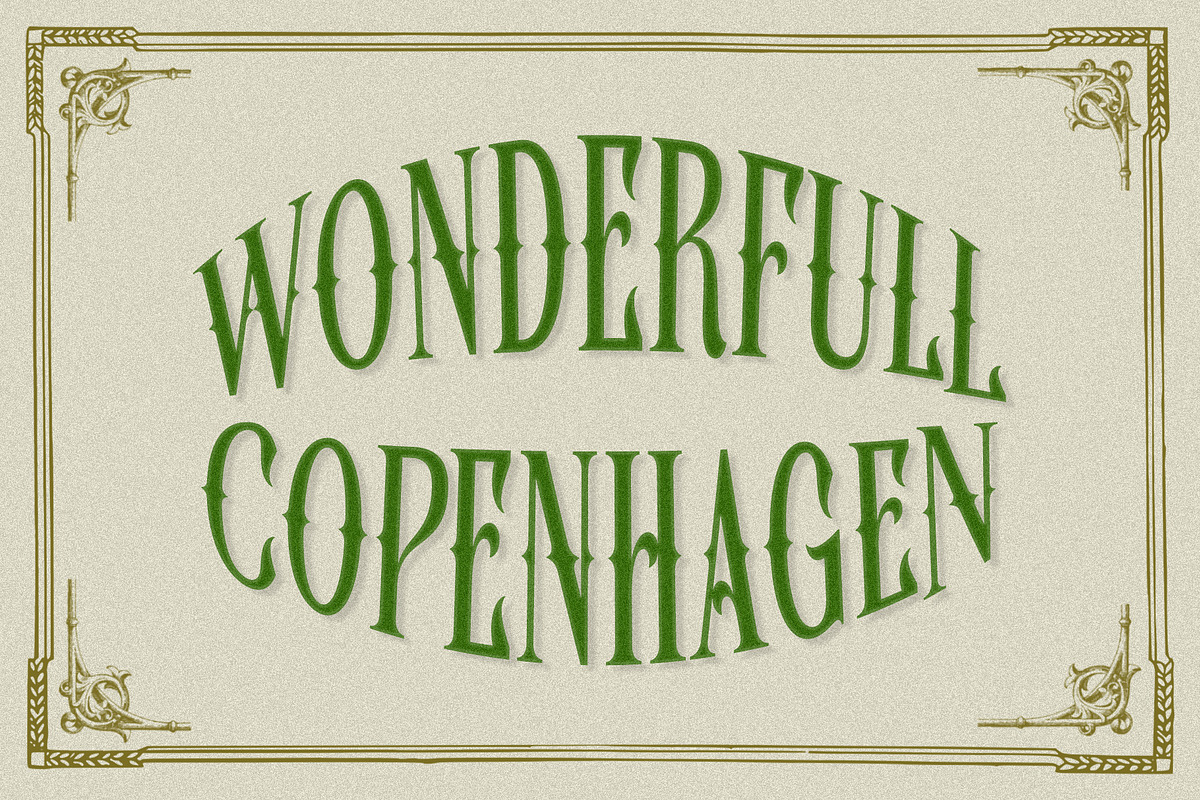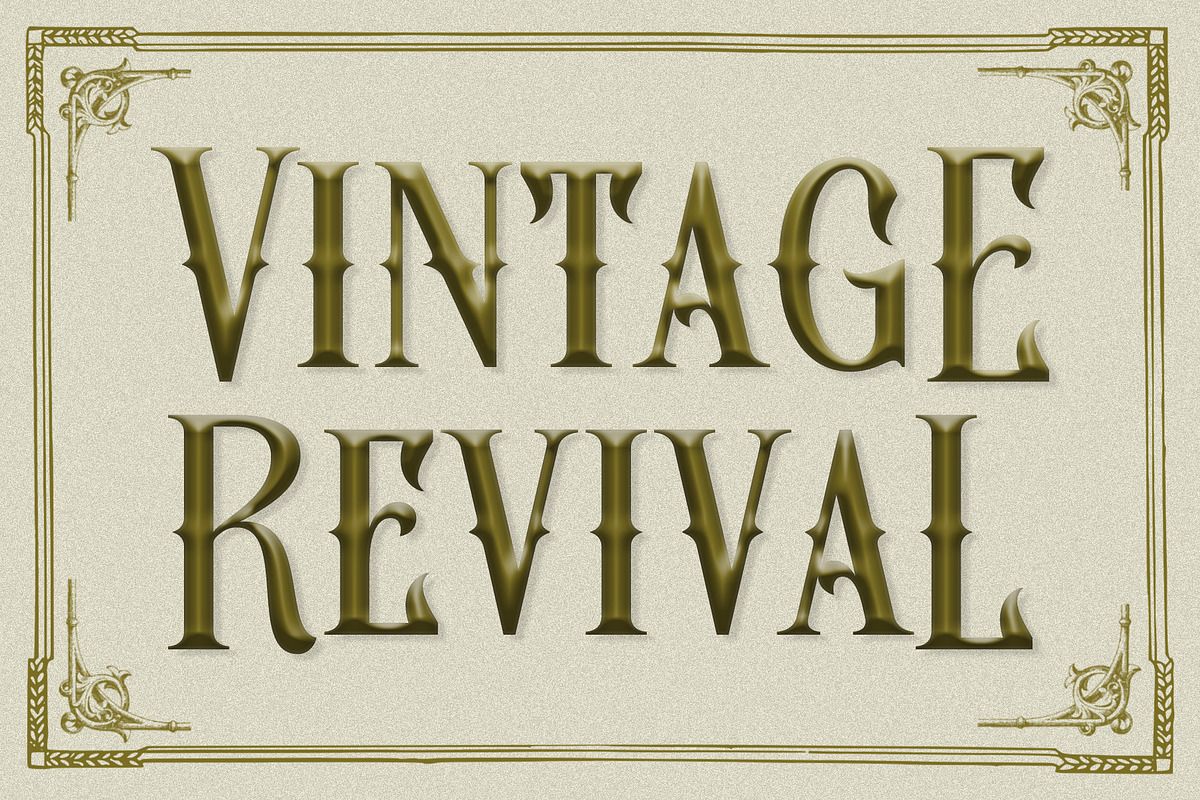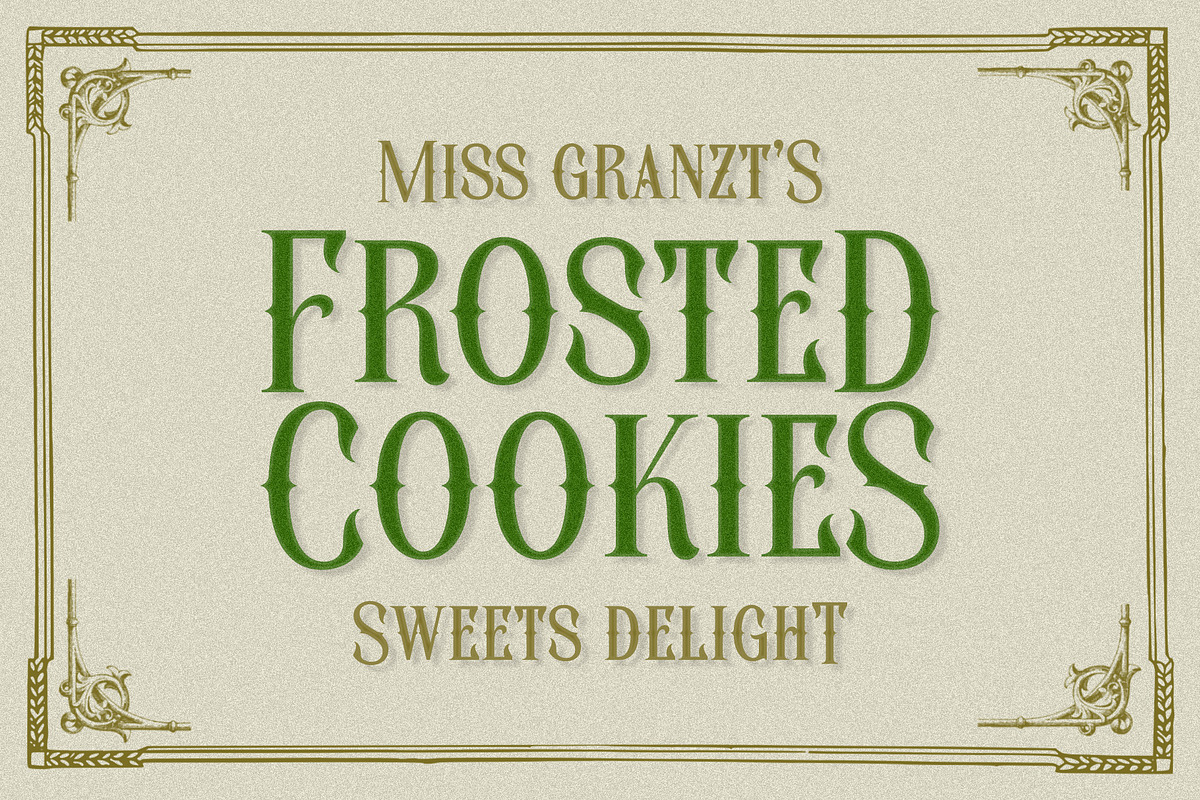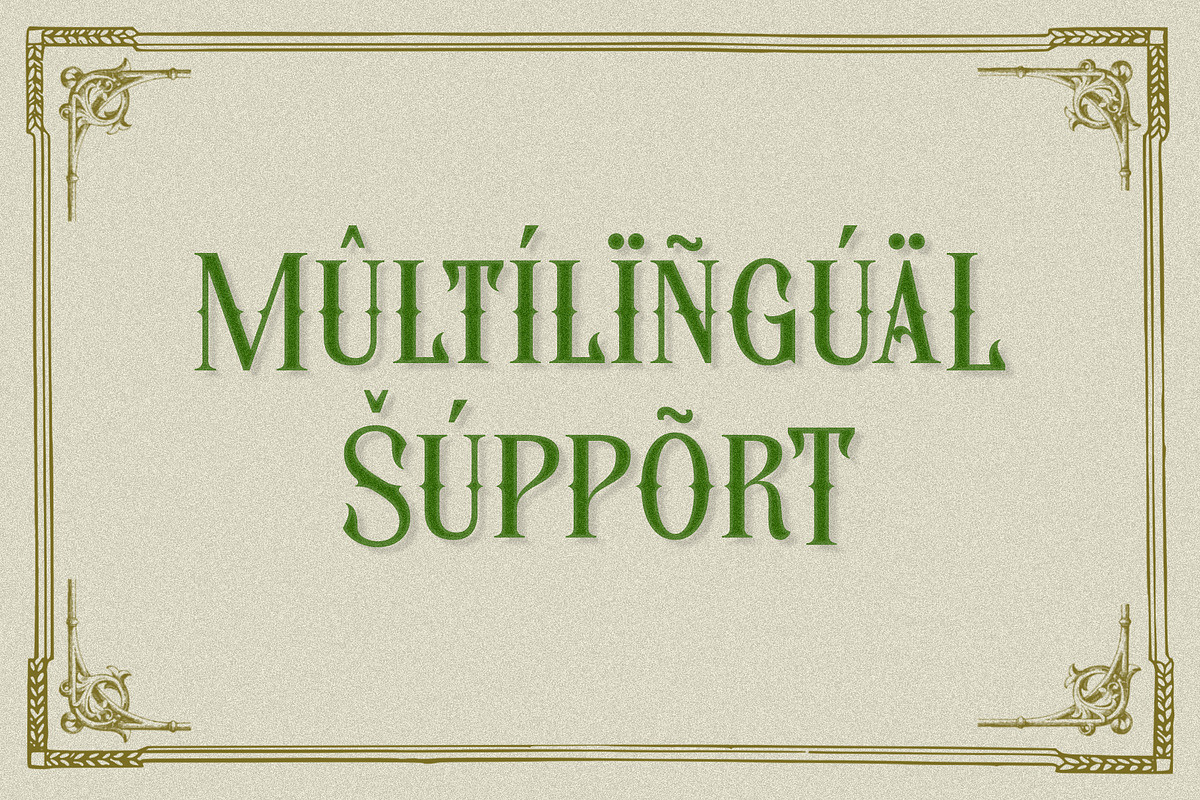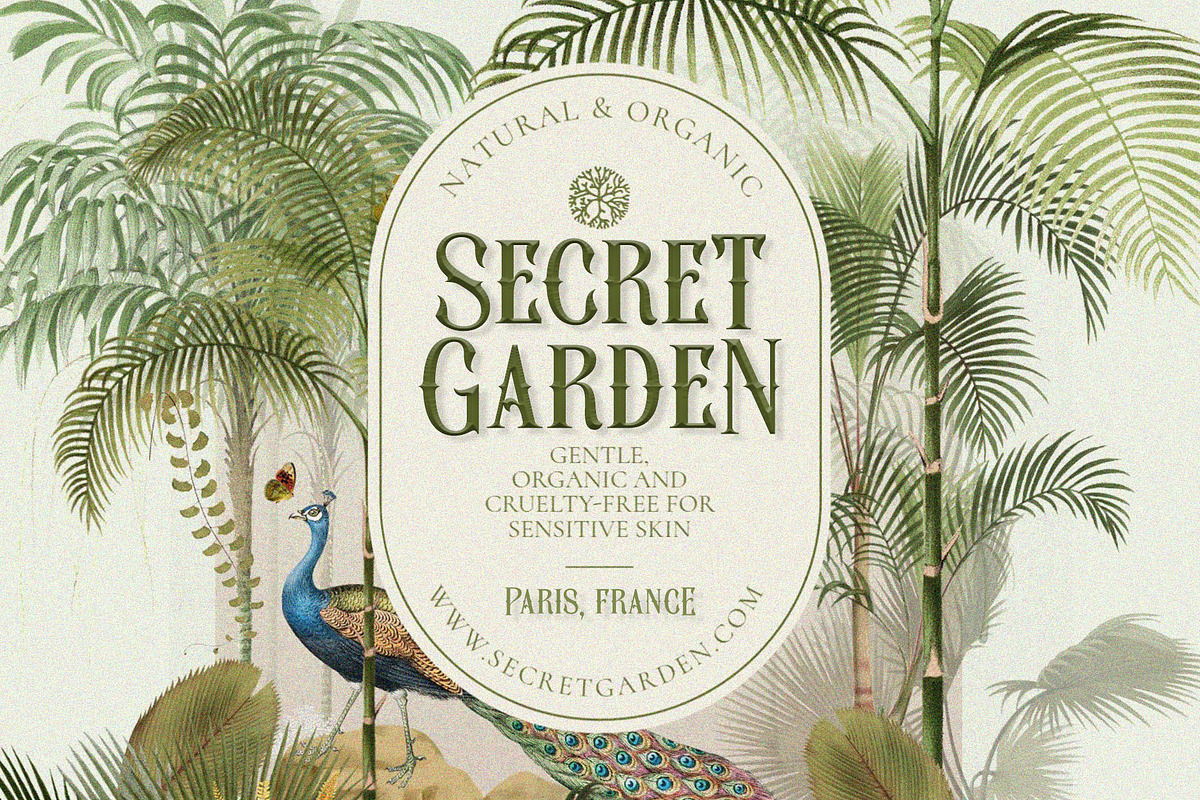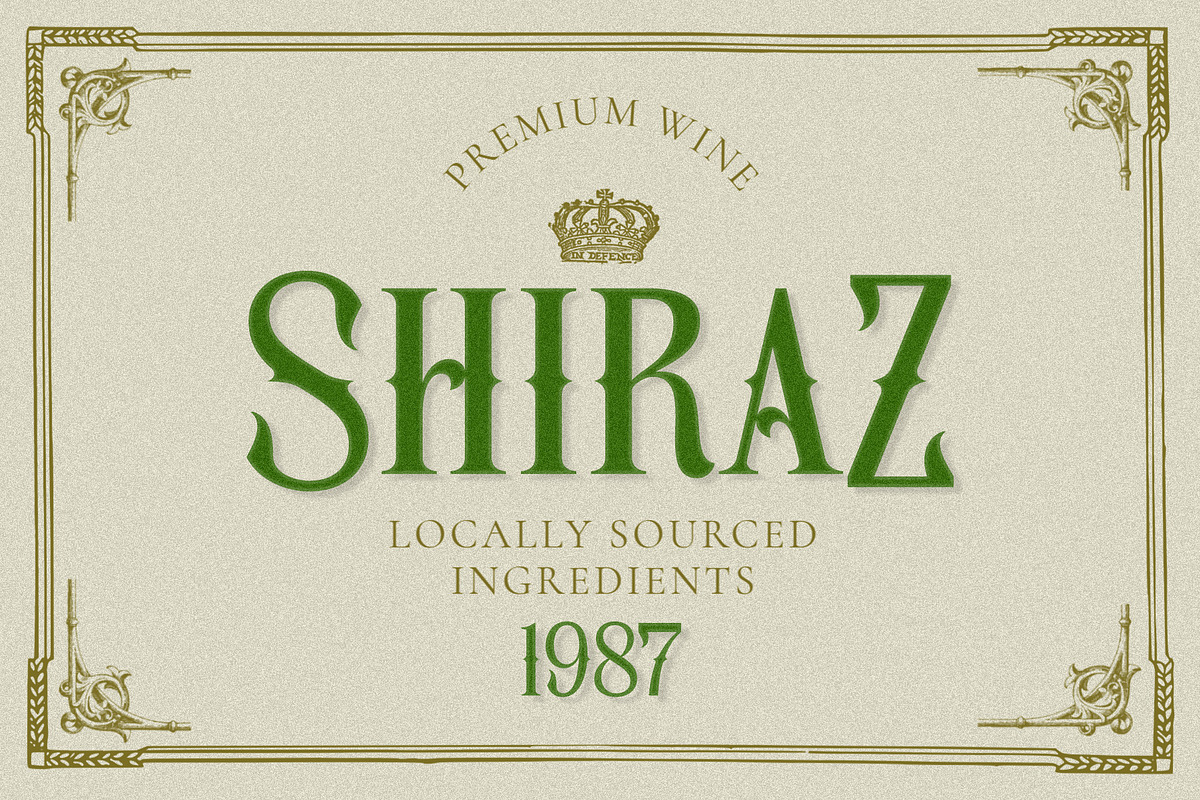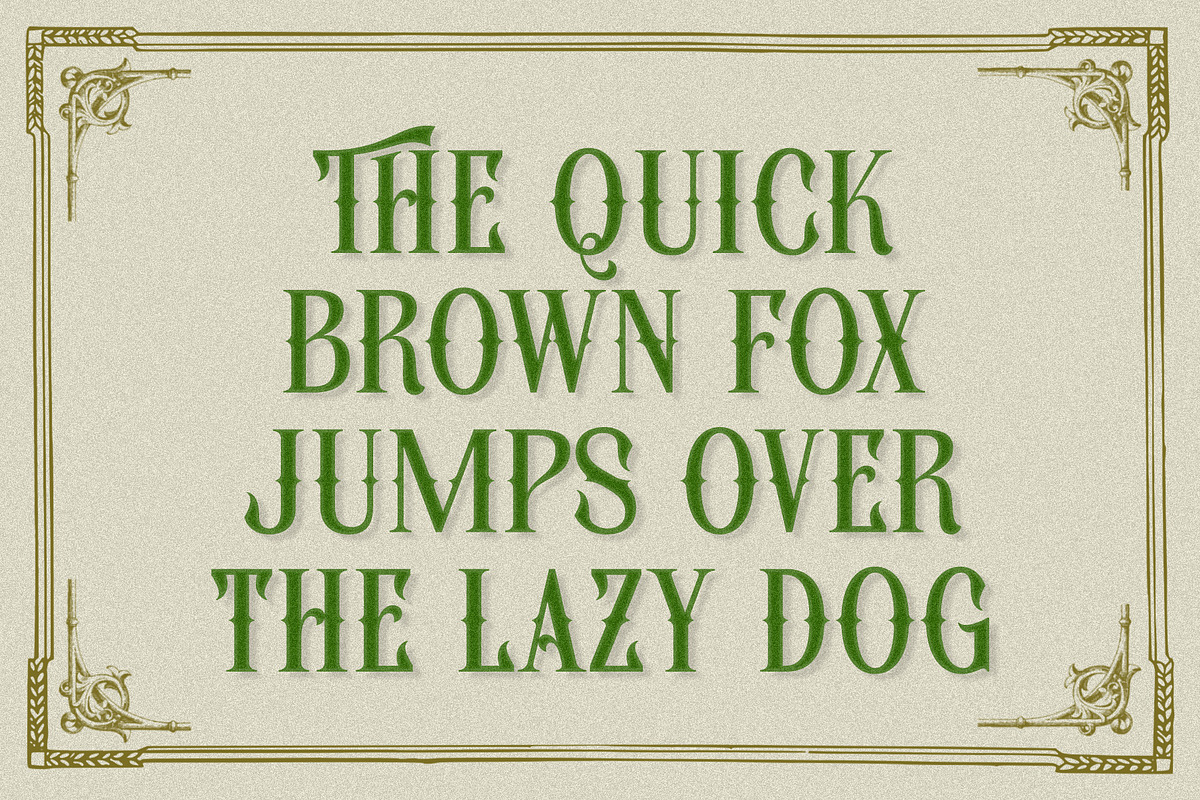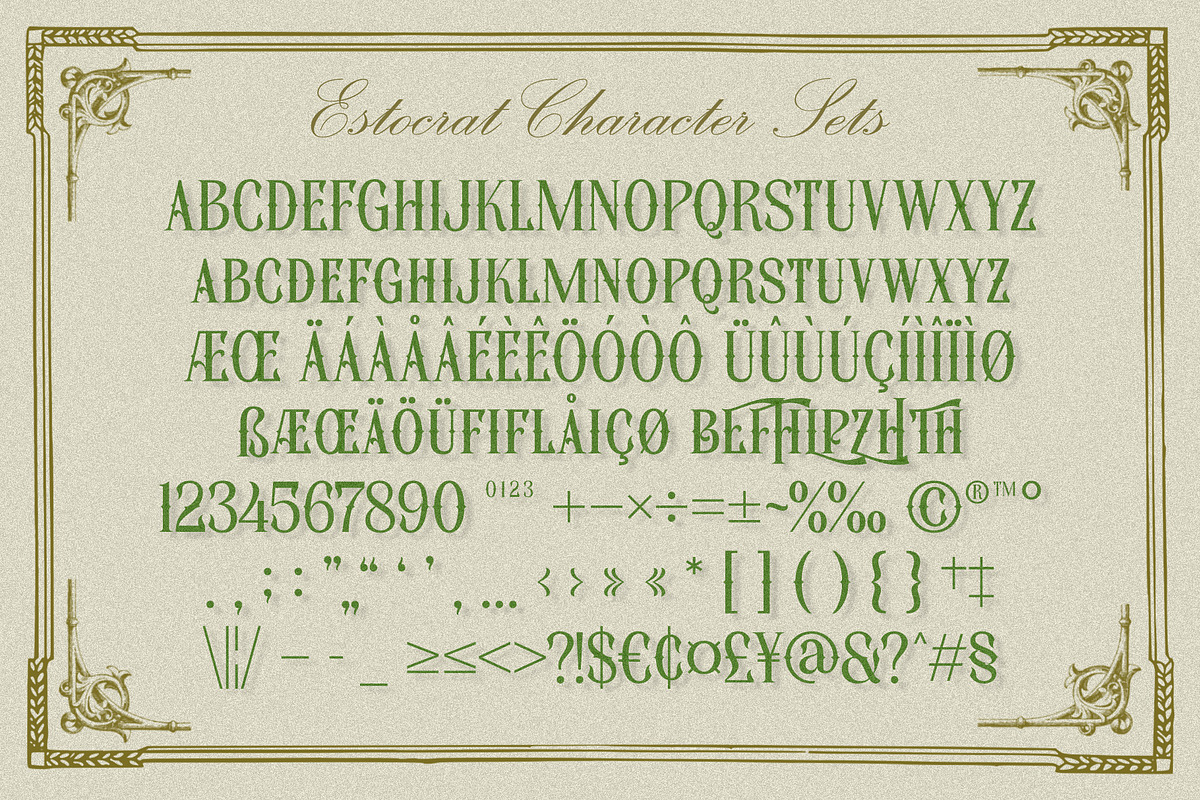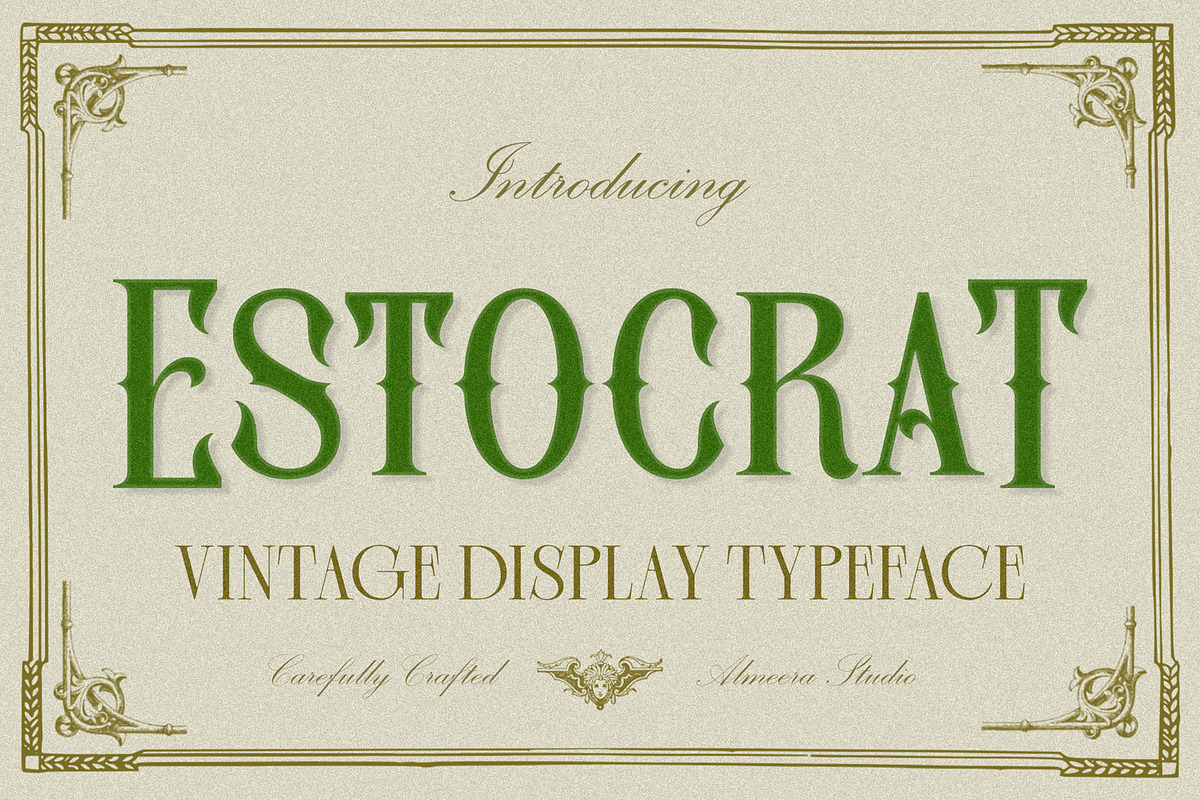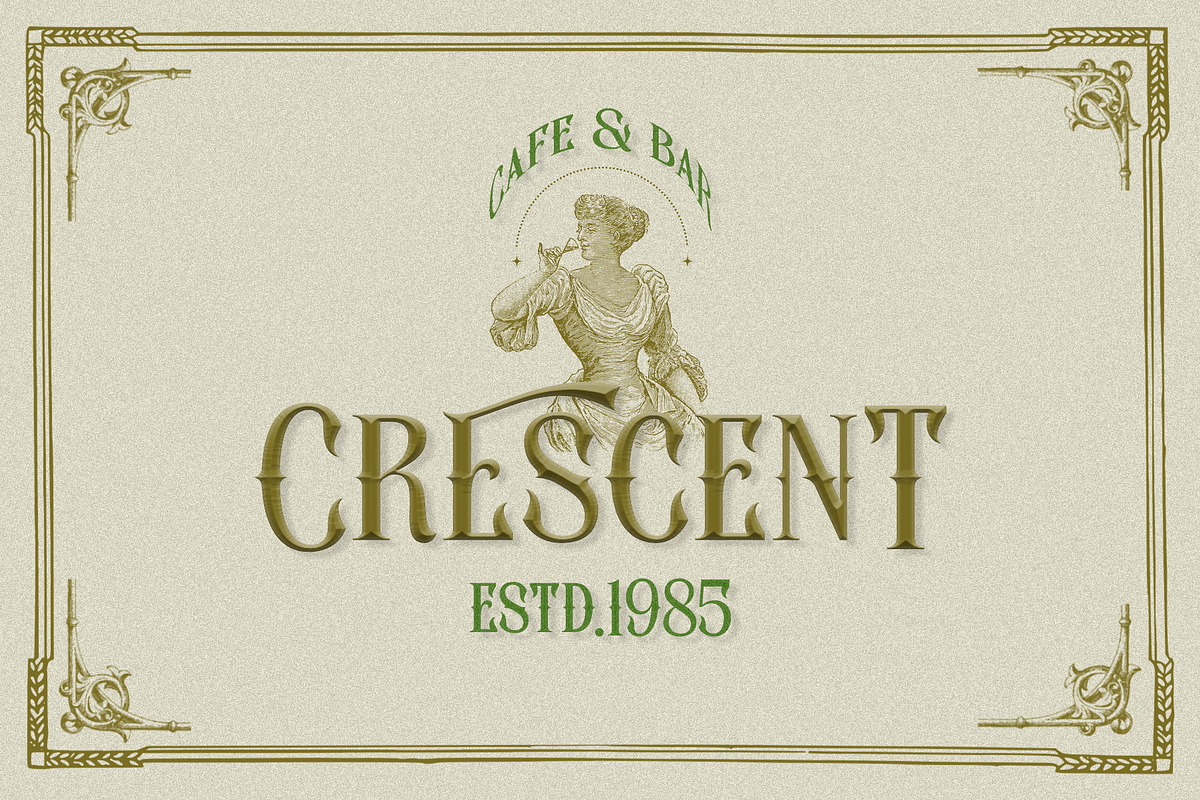
Estocrat - Vintage Display Serif Fon
Introducing Estocrat - Vintage Display Serif Font. Estocrat is a vintage display serif font, This type of font is very suitable for your various needs such as branding projects, logos, social media posts, advertisements, labels, product packaging, photography, wedding designs, watermarks, invitation product designs, stationery, and any project.